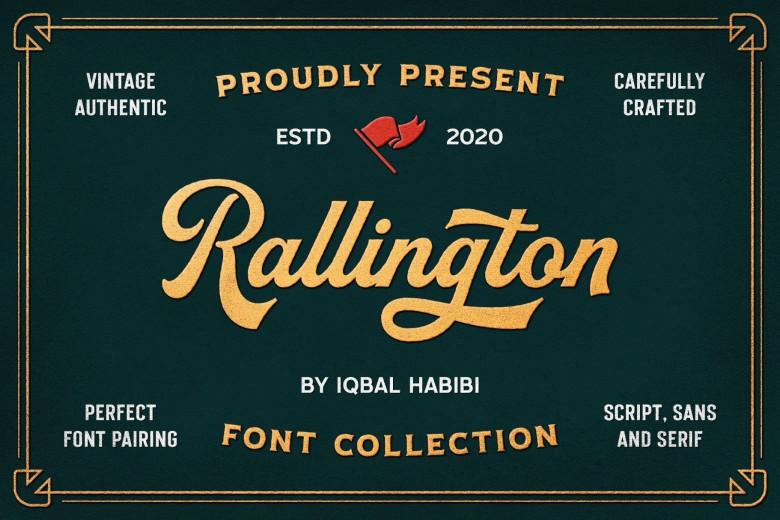
Rallington Script Font Free
Rallington Font is a script font with a which gives a vintage and retro style but still with elegant and classy touch to your projects. Rallington font is to use for any kind of design such as branding projects, logos, social media posts, advertisements, product packaging, product designs, labels, poster, photography, t-shirt, watermarks, stationery, and any projects.